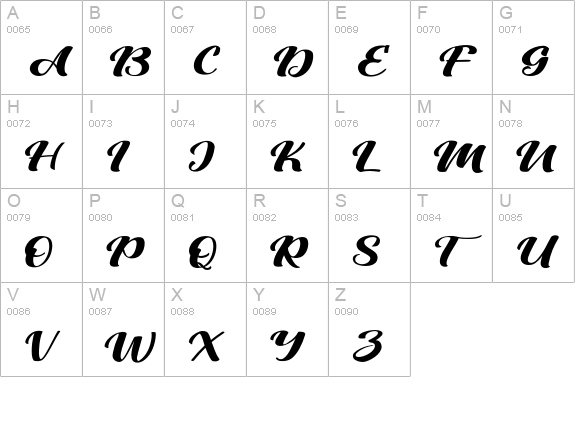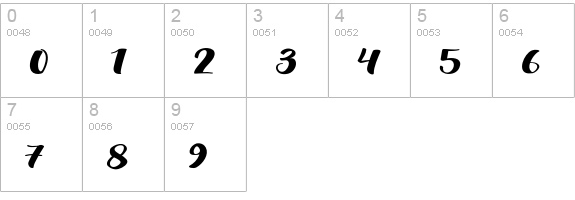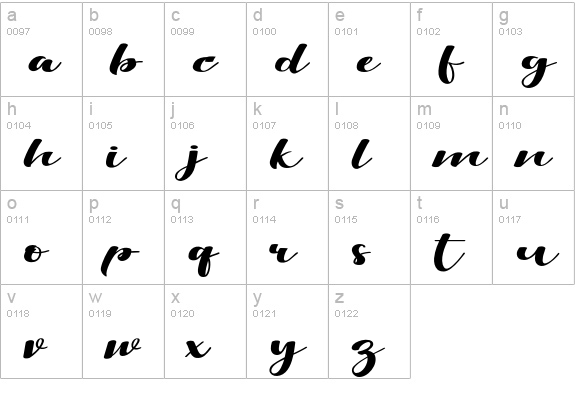
Viksi Script Font Details
Viksi Script is a completely free font in the Script > Calligraphy category, designed by khurasan. It has been downloaded 572 times and is available for Windows, Mac and Linux.
Introducing Viksi Script font, a stunning display typeface that effortlessly combines elegance with a touch of modern flair. With its graceful swirls and delicate curves, Viksi Script exudes sophistication and charm, making it perfect for a wide range of design projects.
This exquisite font is not only visually captivating but also highly versatile, suitable for branding, invitations, posters, and more. Its smooth and flowing letterforms create a seamless and harmonious look that will elevate any design it is used in.